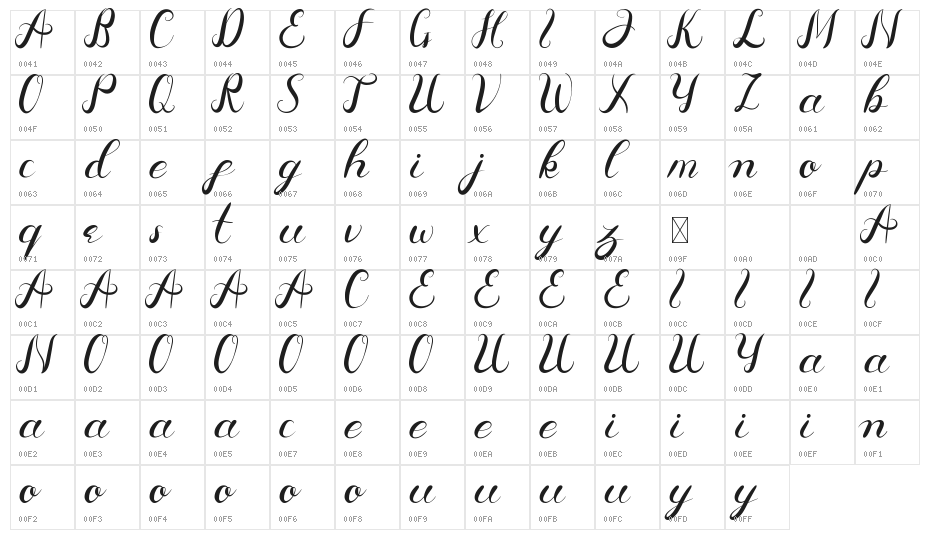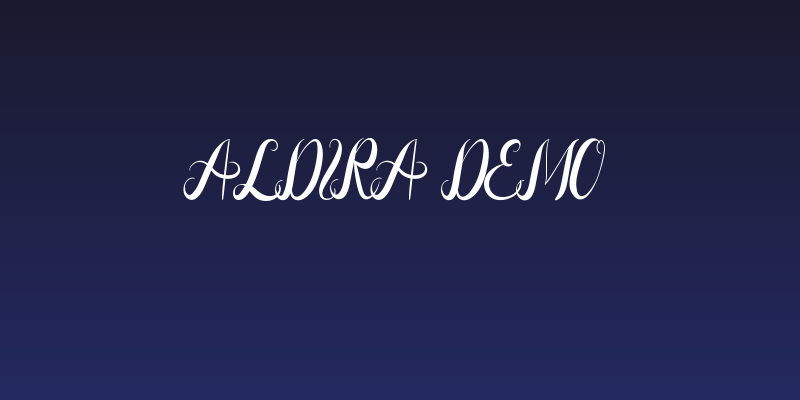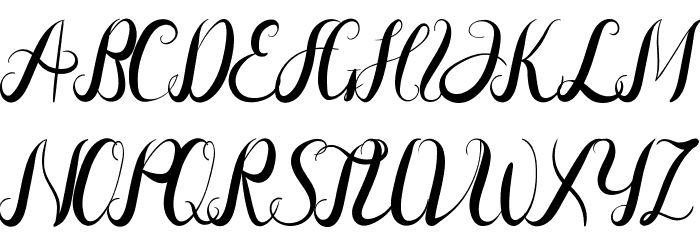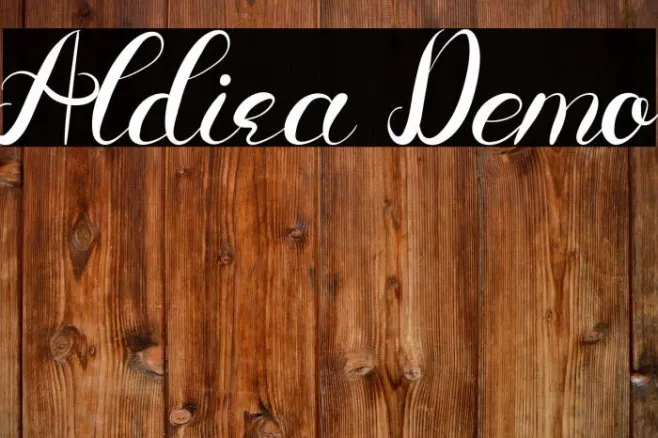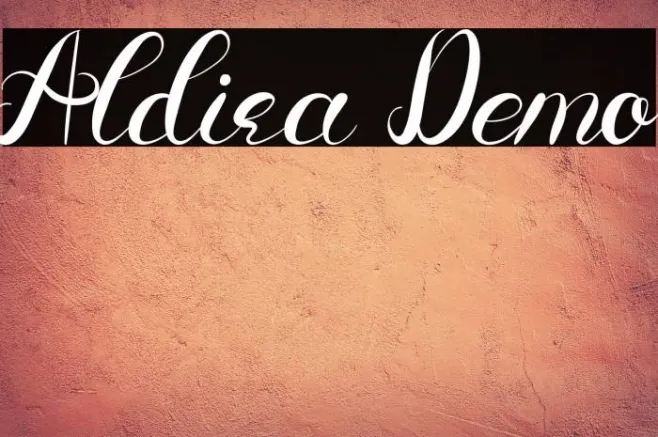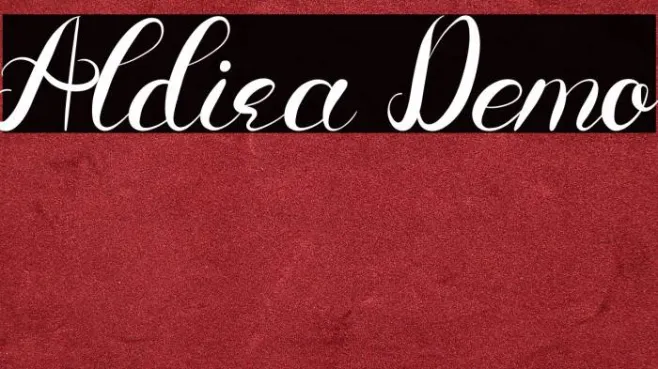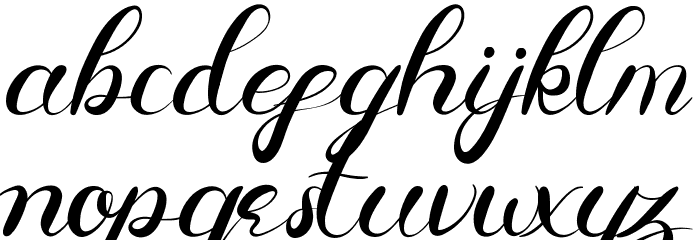
Aldira Demo Font
Aldira Demo Description
This font exudes elegance and sophistication with its flowing, cursive style. The characters are intricately designed, featuring graceful loops and swashes that add a touch of flair to each letter. The uppercase letters are particularly ornate, with extended flourishes that give them a dramatic appearance. The lowercase letters maintain a consistent style, offering a harmonious blend of readability and decorative appeal. The font's overall aesthetic is reminiscent of classic calligraphy, making it suitable for projects that require a touch of refinement and class.